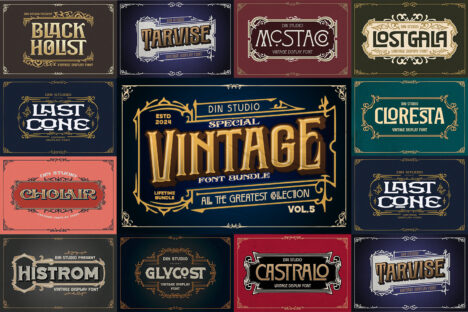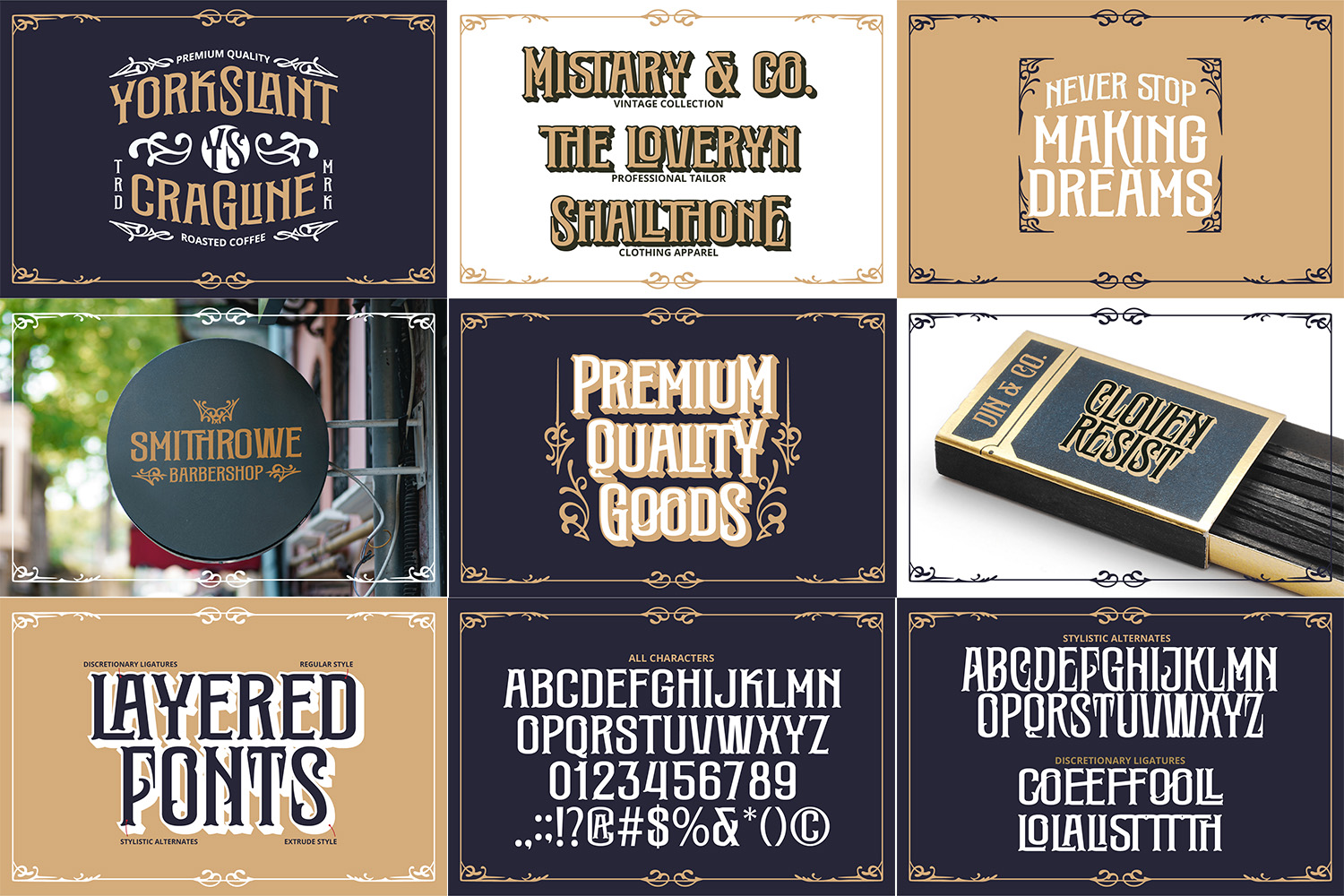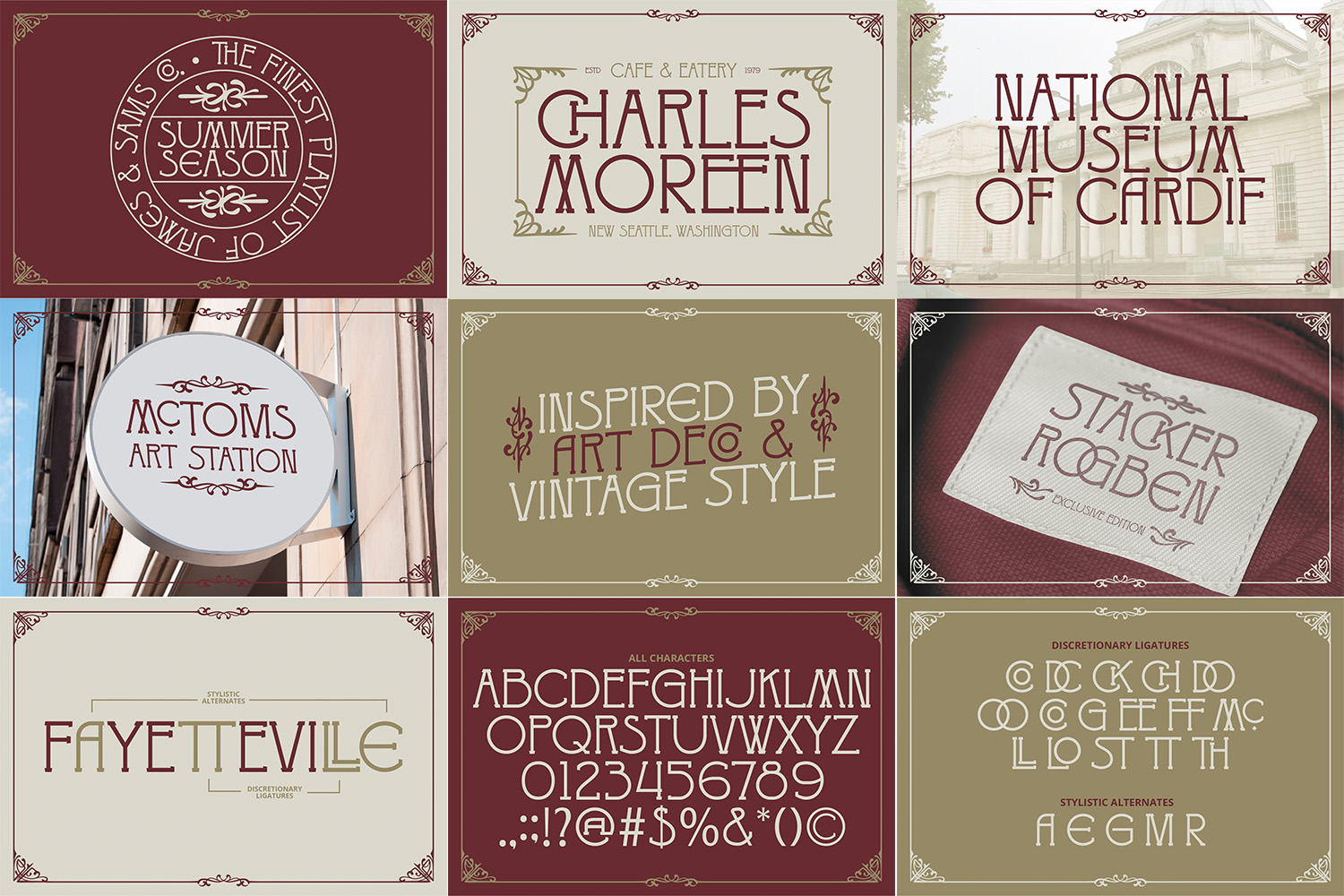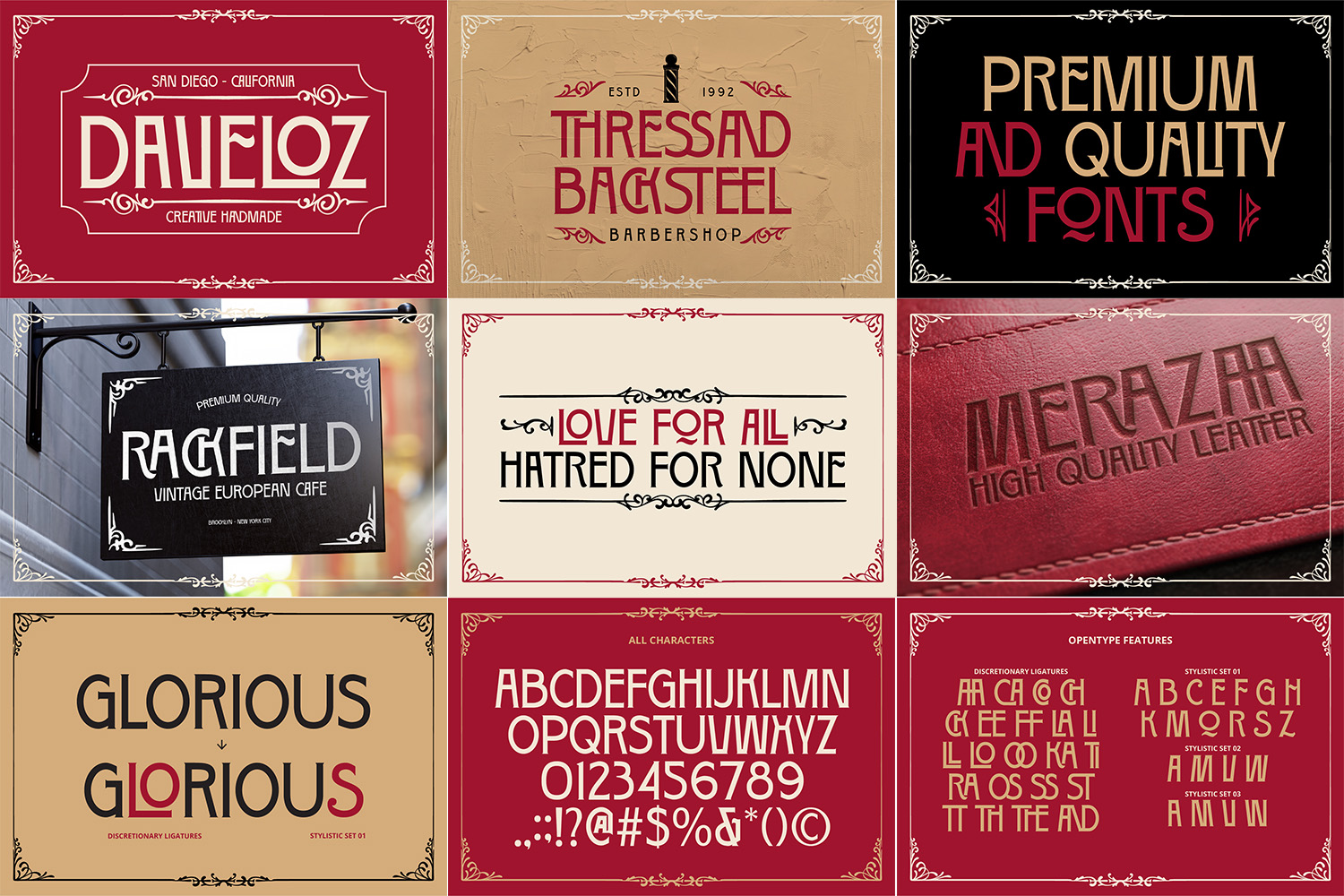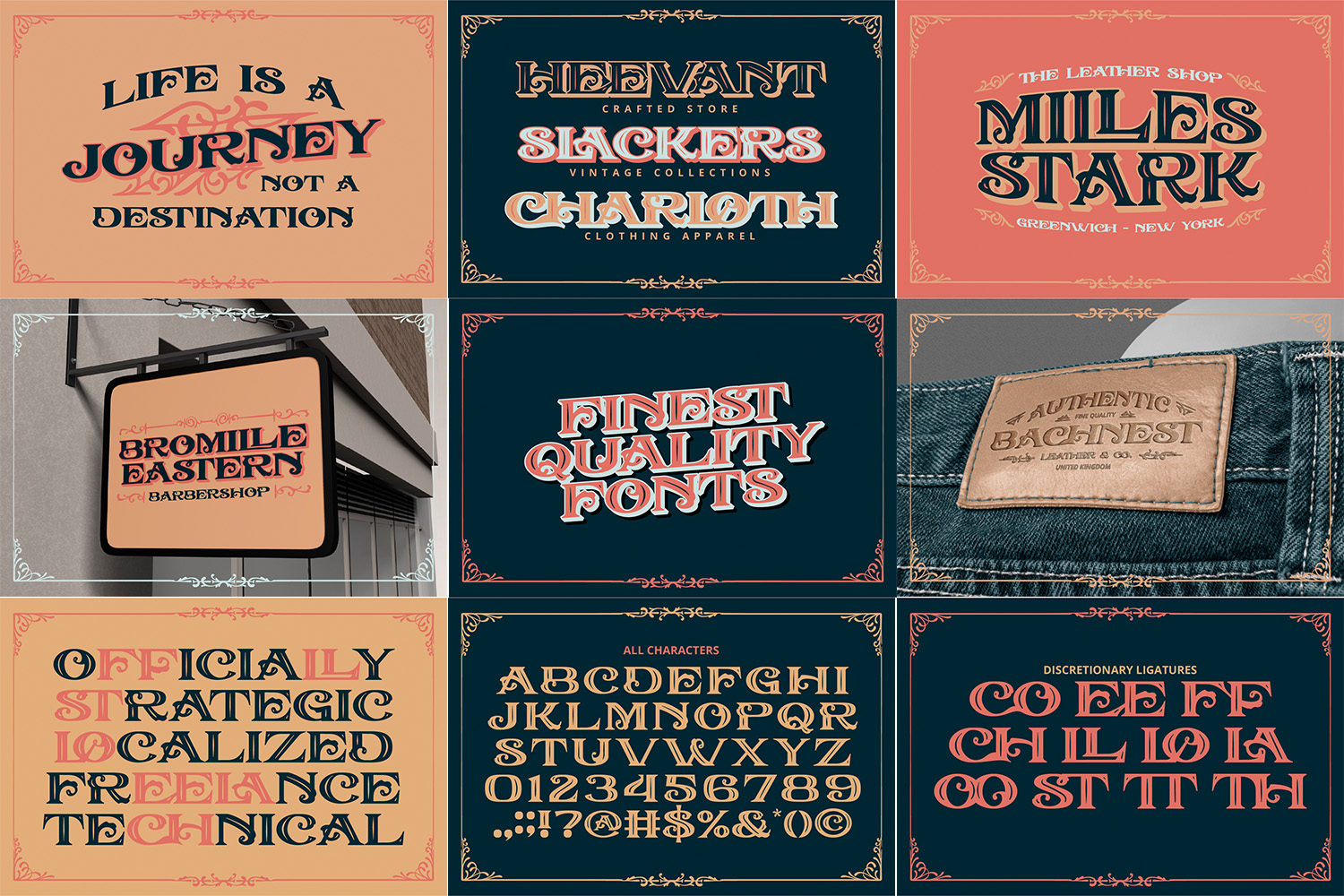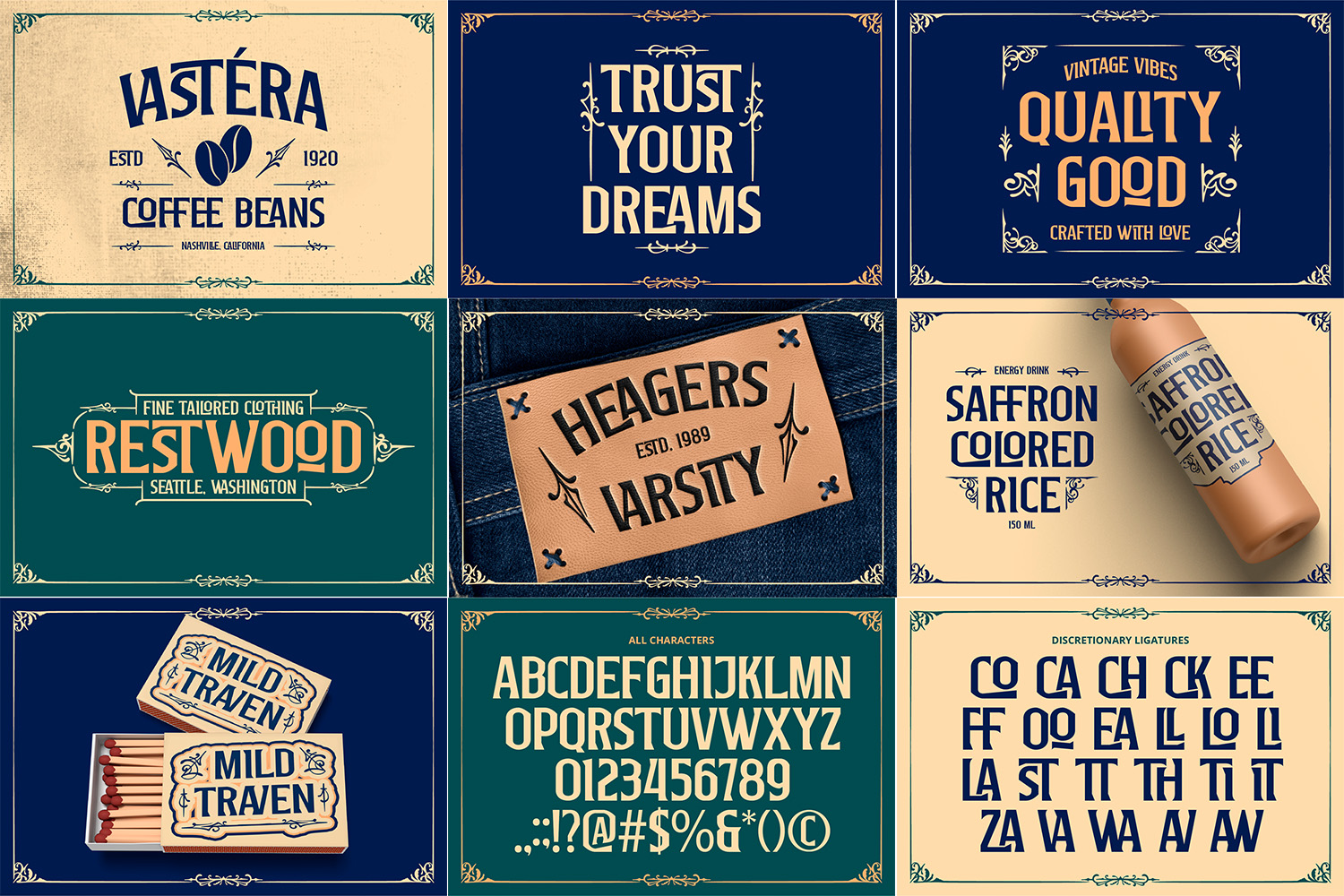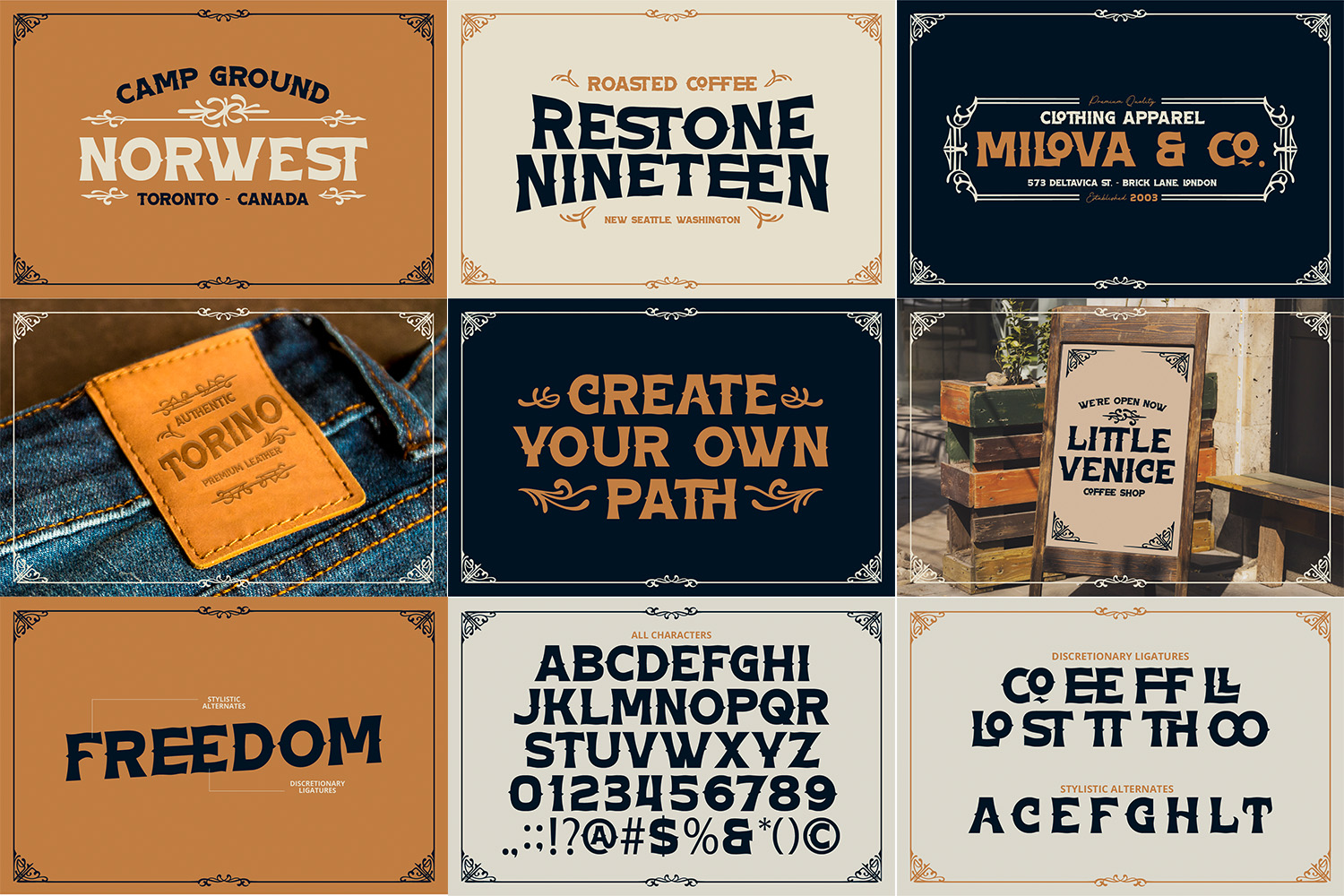
Vintage Font Bundle Vol 5
Black Holist
Castralo
Cholair
Cloresta
Glycost
Histrom
Lastcone
Lostgala
Mcstaco
Tarvise
Hello, Everyone! Relive the charm of bygone eras and infuse your designs with a touch of nostalgia using the Vintage Font Bundle Vol 5.
A timeless collection of 10 stunning fonts that capture the essence of retro design with a modern twist. Each font is meticulously crafted to evoke nostalgia, featuring bold and decorative letterforms, rich textures, and unique vintage-inspired details. Create gorgeous headlines, logos, attention-grabbing titles, branding materials, editorial layouts and more with this bundle.